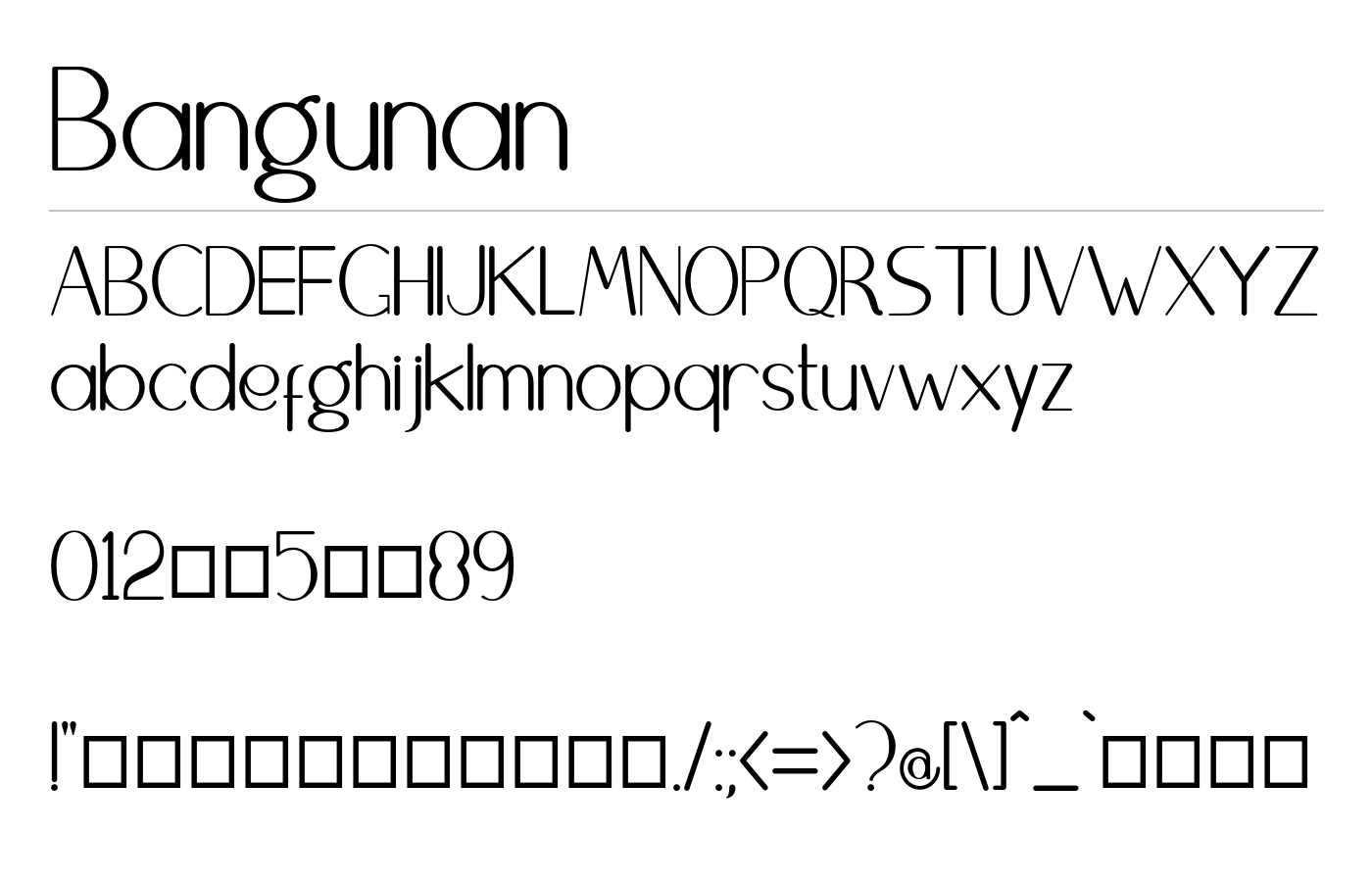
Bangunan is a sleek and modern sans serif font characterized by its tall, narrow letterforms and delicate stroke weight. Its clean, geometric shapes and unique design details give it a contemporary yet approachable feel, making it ideal for fashion branding, editorial headlines, and stylish logo design. This font works well where elegance and clarity are needed without overwhelming the viewer.
Bangunan Font